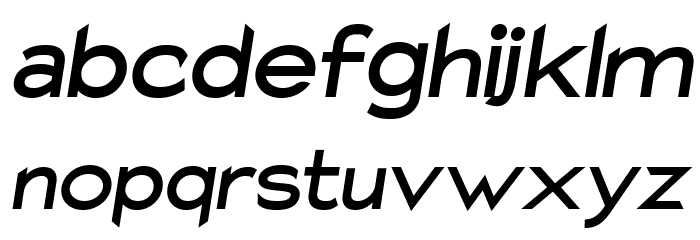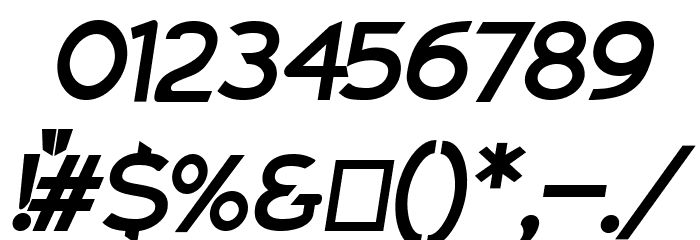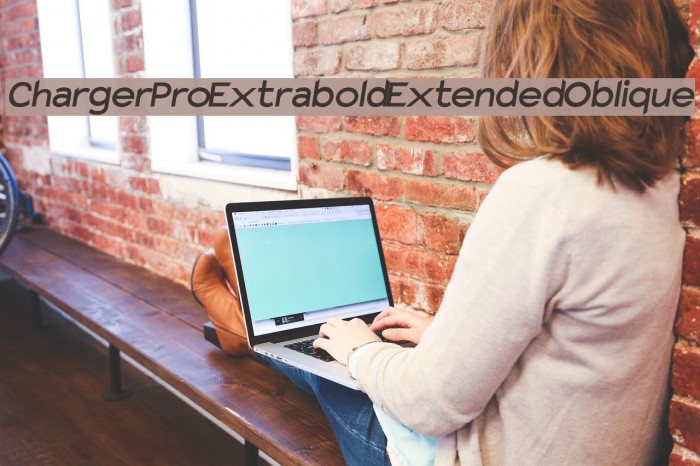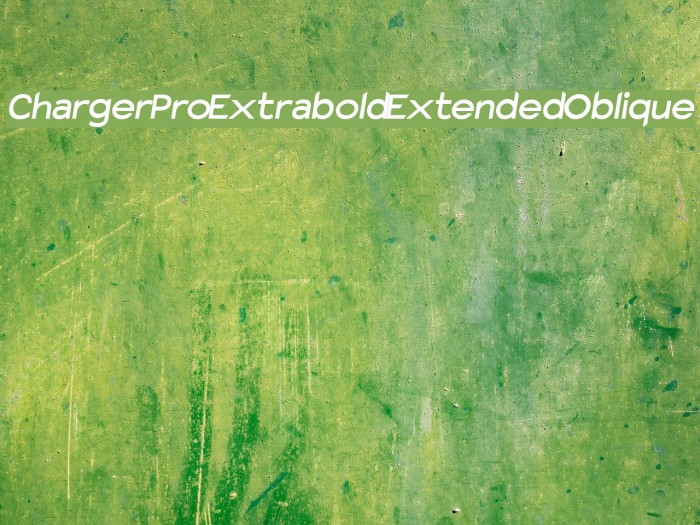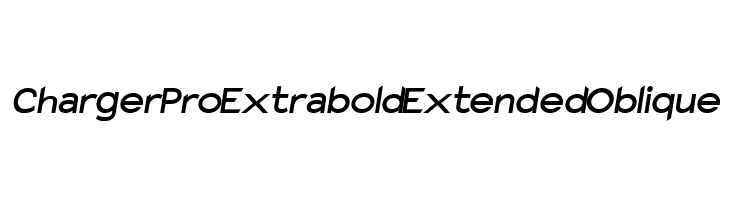
Charger Pro Extrabold Extended Oblique Font
This font exhibits a bold and dynamic presence with its extra-bold weight and extended width. The oblique style adds a sense of motion and modernity, making it stand out in any design. Its clean lines and smooth curves provide a sleek and professional appearance. The uppercase and lowercase letters maintain a consistent style, ensuring readability and visual appeal. The numerals and special characters are designed with the same attention to detail, offering a cohesive look across all elements. This font is ideal for projects that require a strong and impactful typeface.
A bold, extended, and oblique font with a modern and dynamic style.